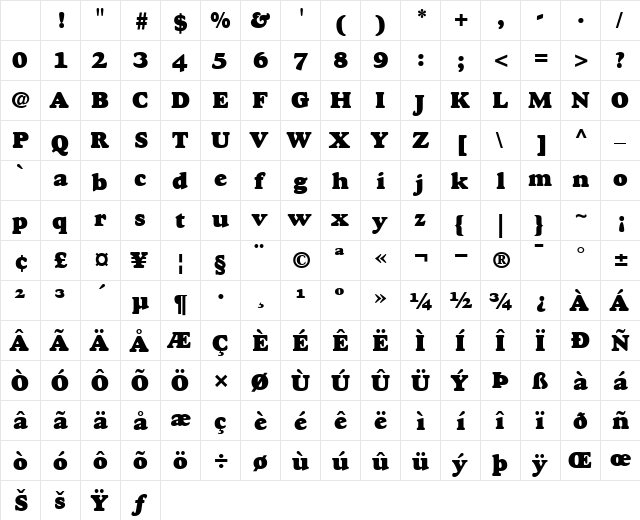
Complete Goudyface- Heavy glyph index. Displaying only characters natively supported by Goudyface- Heavy font.
Goudyface- is a composed and adaptable typeface that performs quietly and consistently across a wide range of design contexts.